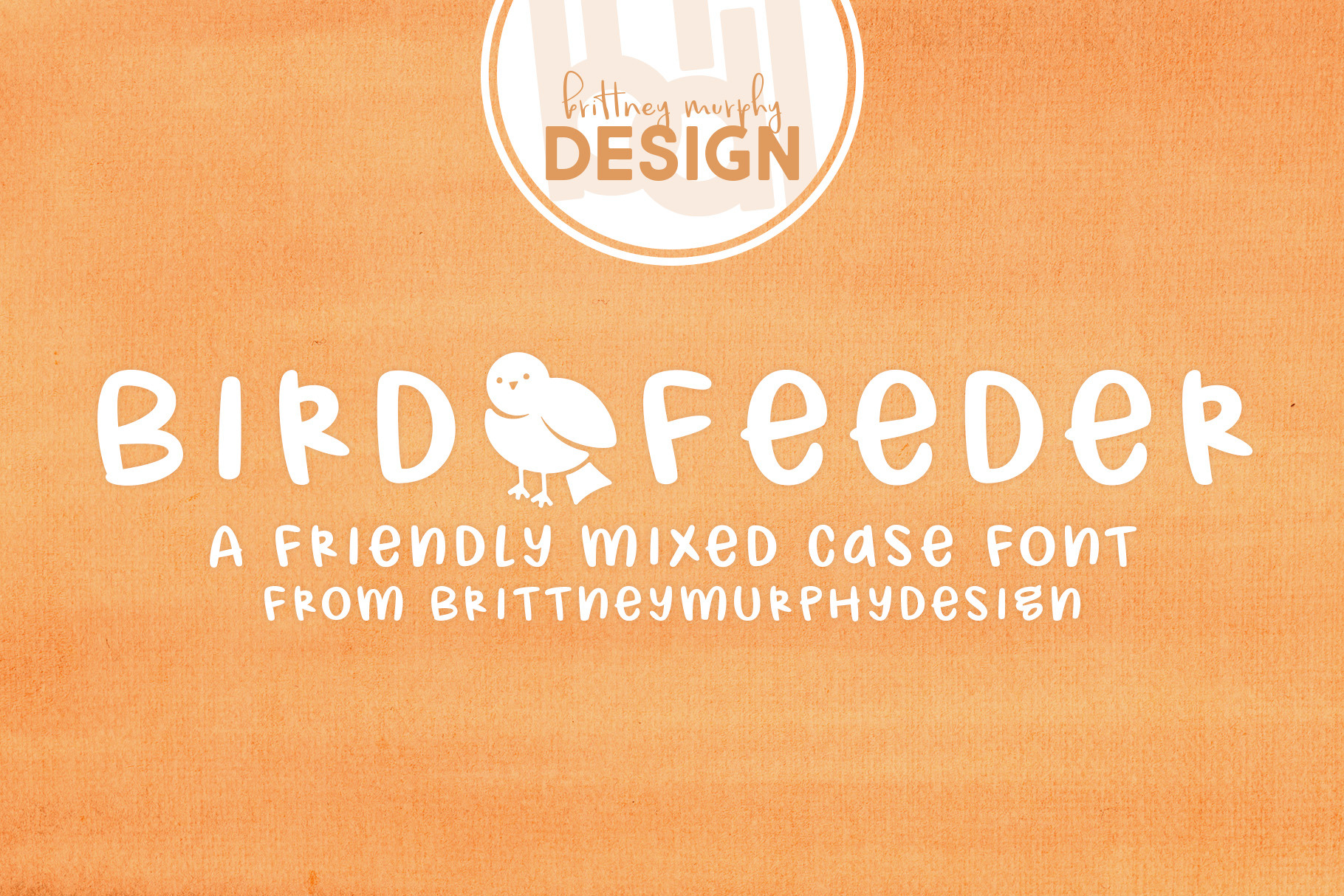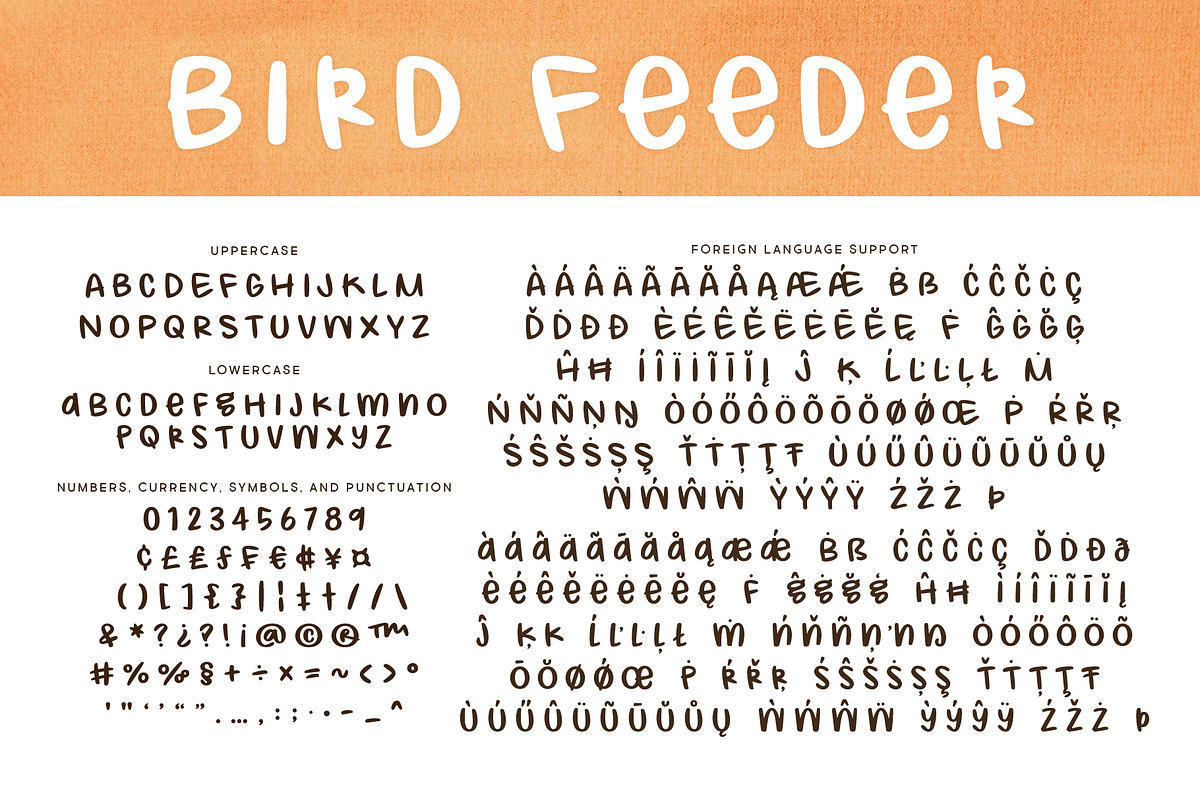
Bird Feeder Font
The Bird Feeder font is a mixed case font created in 2022. It’s casual letter shapes and rounded corners give it a friendly, approachable feel. Use it in your projects to add some warmth and good-naturedness.
Bird Feeder has over 300 characters, including many accented characters for multilingual support.